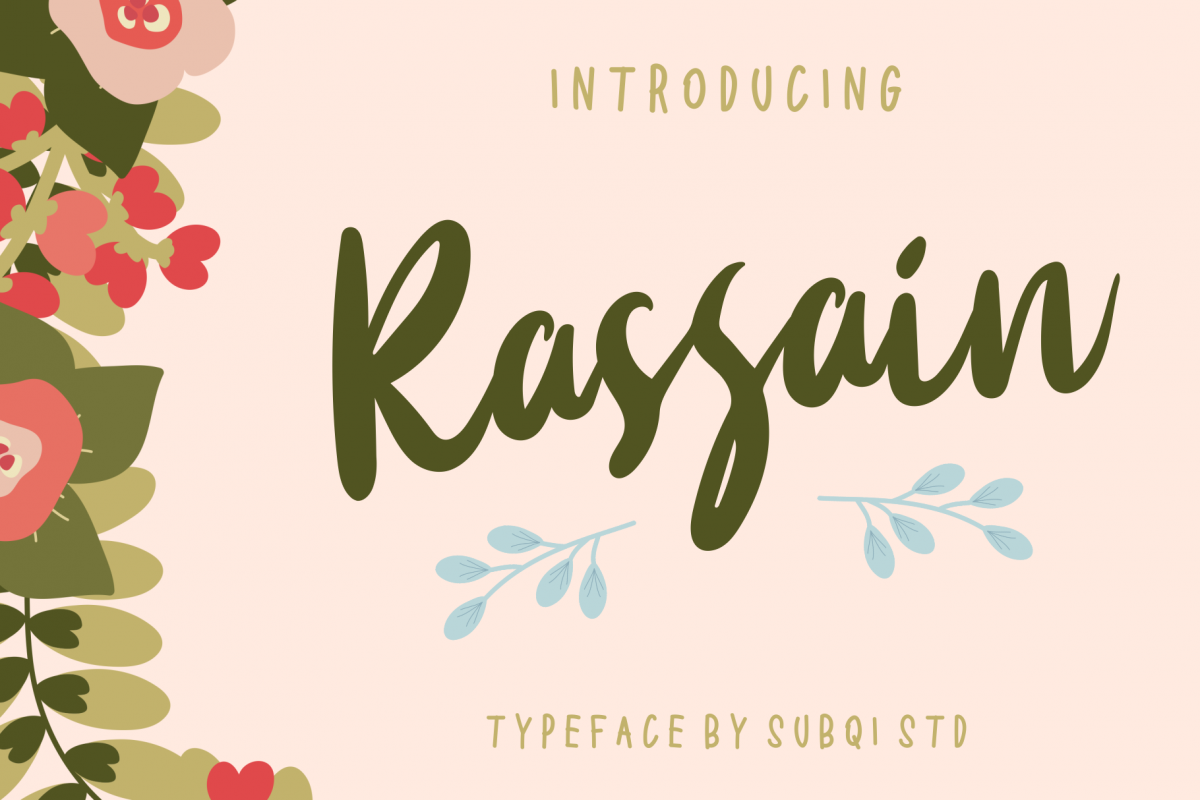
Rassain Handwritten Script
Introducing, RASSAIN typeface. 100% handmade, so you could feel the organic flow on it. This font will suitable for your many design needs. From branding , packaging, invitation etc.
MULTILINGUAL ACCENT
ŁłŽžŠŒšœŸÀÁÂÃÄÅÆÇÈÉÊËÌÍÎÏÐÑÒÓÔÕÖØÙÚÛÜÝÞßàáâãäåæçèéêëìíîïðñòóôõöøùúûüýþÿ